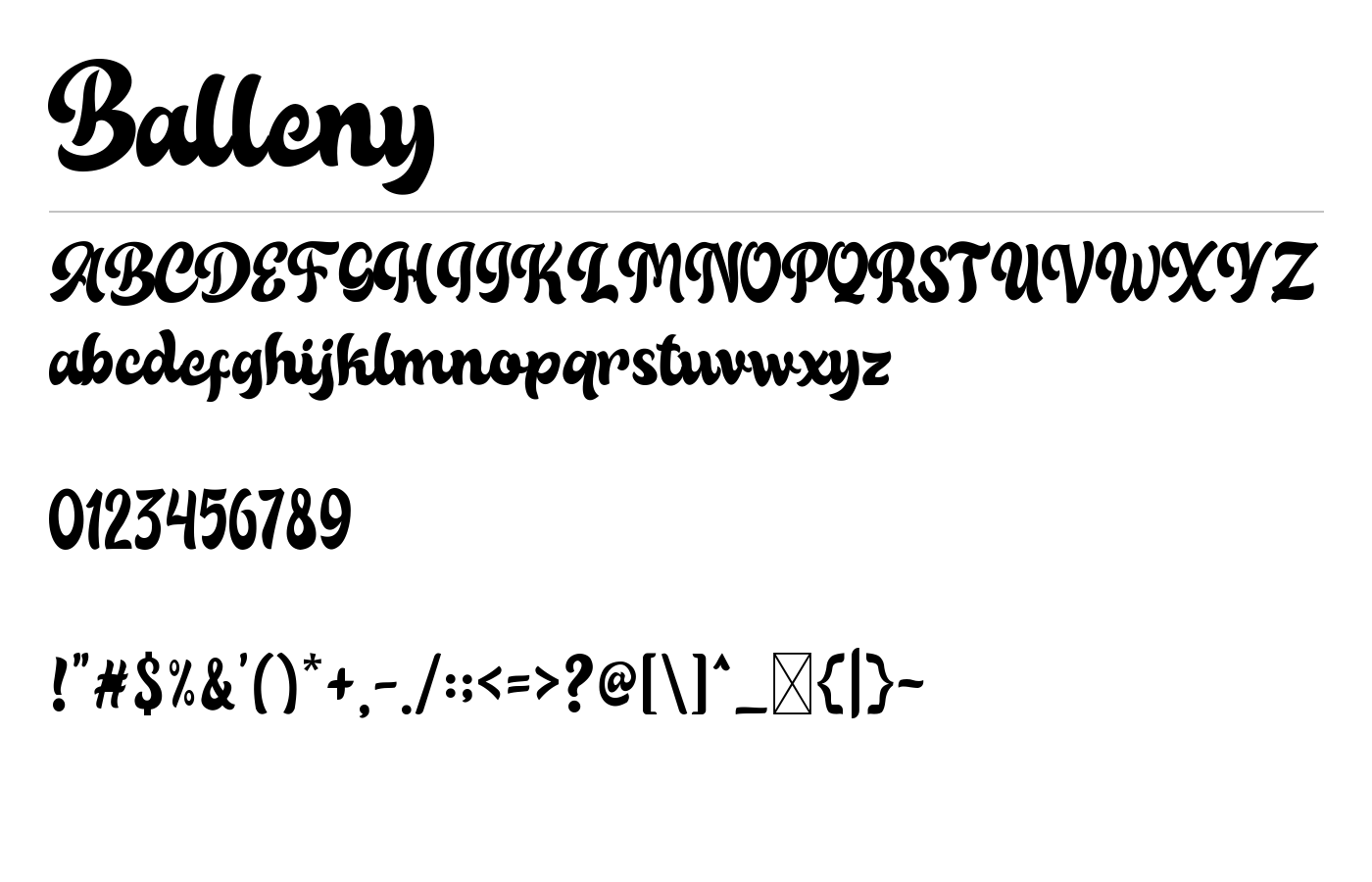
Balleny is a bold and playful script font with a lively, hand-lettered feel. Its thick, rounded strokes and slightly condensed letterforms give it a warm, friendly personality, making it ideal for branding, packaging, and headlines where a charming, approachable style is desired. Perfect for creative projects that need a touch of fun and personality, Balleny stands out with its smooth curves and energetic rhythm.
Balleny Font
About Balleny Font
| Font family | Balleny Font |
| Designer | Letterayu Studio |